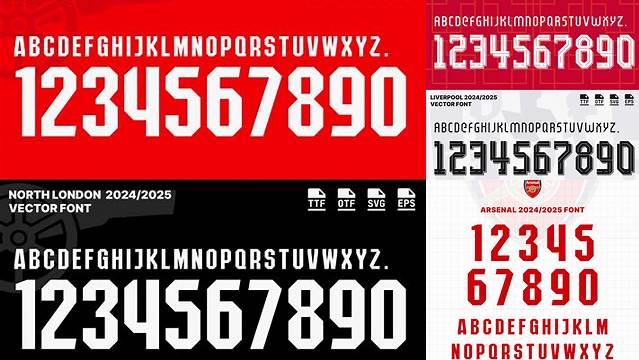
Football Fonts 2026: Designing For The Beautiful Game
Hey everyone! Let's dive into something super cool – the world of football fonts! Specifically, we're gonna explore what might be trending and awesome for the 2026 season. Choosing the right font isn't just about picking something pretty; it's about capturing the spirit of the game, reflecting a team's identity, and making sure your message is crystal clear to fans. Ready to get your design game on? Let's go!
Football Fonts: The Building Blocks of Team Identity
When we talk about football fonts, we're talking about more than just letters. They're a cornerstone of a team's brand. Think about it: every time you see a jersey, a stadium sign, or a social media post, the font plays a huge role in creating a visual identity. It’s like the team's voice in the visual world. For the 2026 season, we can expect to see continued innovation in this area. Teams will be looking for fonts that are both modern and timeless. They'll want something that resonates with their fans, conveys strength and unity, and looks great across all platforms, from the huge stadium screens to the tiny screens on smartphones. Gone are the days when any old font would do. Strong design choices can really help a team stand out and create a bond with its supporters. The right font can instantly communicate a team's values and what they stand for, like the fonts used by global giants like Manchester United and Barcelona. These teams don’t just pick any font, they pick a font that embodies their legacy and forward-thinking vision.
Football fonts have evolved significantly. Early fonts were often simple, and very basic, purely functional. Then, as the sport became more commercialized, teams started exploring bolder, more distinctive fonts. Today, we're seeing a mix of retro influences, futuristic styles, and custom-designed fonts tailored specifically to a team's needs. In 2026, expect to see even more creative and strategic font choices. Designers will be mindful of legibility, ensuring that the font is easy to read even from a distance or on a fast-moving screen. They will also be careful to reflect the latest trends in design, such as minimalism, geometric designs, and the use of variable fonts that can dynamically adjust to different screen sizes. It’s about more than just looking good; it's about crafting an experience that connects with fans and makes them feel part of the team. This also means font consistency is key, making sure the typeface is used on merchandise, websites, and other items. It builds brand recognition and reinforces team identity, as it plays a crucial role in fostering a sense of belonging and loyalty among fans.
The Psychology Behind Football Font Choices
Choosing a football font isn't just an aesthetic decision; it's also a psychological one. Different fonts evoke different emotions, so the font choice has to align with the team's personality. For example, a team that wants to project an image of strength and dominance might choose a bold, sans-serif font. If they're going for a more classic and traditional feel, they might opt for a serif font or a font that has a bit of a vintage vibe. In 2026, teams will need to be even more aware of this psychology. They'll need to understand their target audience and choose fonts that resonate with them. This means considering factors like age, cultural background, and even the team's location. A font that works well for a team in one country might not be appropriate for a team in another. It is about conveying messages that reinforce team values and aspirations. The psychology of font choice is also key when designing merchandise, as the font can be used to appeal to the emotional side of fans, making them want to buy items to support their favorite team. Therefore, teams need to conduct research and testing to make sure their fonts are conveying the message they want to send.
Font Trends for the 2026 Football Season
Alright, let's talk about what we might be seeing in terms of font trends for the 2026 football season. Designers will be looking for fonts that can make a statement, which is always a key goal in the world of sports branding. Here are some trends we can keep an eye on, but remember, things evolve fast!
The Rise of Variable Fonts
Variable fonts are the future, guys. They're super flexible, allowing designers to create dynamic typography that can adapt to any screen size. Think about it: a font that can change its weight, width, and slant, all within a single file. In 2026, we'll see more teams using variable fonts to create a more cohesive and responsive branding experience across all platforms. This can also have environmental benefits by reducing the number of font files needed. The variable font trend is driven by the need for flexibility, responsiveness, and overall visual impact. These fonts allow for a greater range of expression while still maintaining consistency. This adaptability is perfect for the dynamic world of sports branding, where teams need to ensure their message looks great, whether it's on a stadium banner or a mobile app. So, expect to see more variable fonts and greater sophistication.
Minimalist and Clean Fonts
Simplicity is still king. Clean, uncluttered fonts are perfect for conveying a sense of professionalism and modernity. In 2026, we can expect to see a lot of teams using sans-serif fonts with strong geometric shapes, like those used in some of the most popular sports brands. They are easy to read and work great on all platforms. This trend is all about stripping away the unnecessary and focusing on clarity and impact. It is essential for legibility and readability, especially on fast-moving screens. Minimalism is effective at conveying a sense of sophistication and modernity, which makes it perfect for teams aiming to project a professional image. These fonts are often used to communicate essential information to fans, such as match schedules and team news, ensuring that the information is easy to grasp.
Bold and Expressive Fonts
On the other end of the spectrum, some teams will go for fonts that are bold and expressive. These might have unique letterforms, strong outlines, or even some hand-drawn elements. They grab attention and reflect a team's unique personality. In 2026, these fonts will be seen more, especially by teams that want to create a strong brand identity. Bold fonts work best for creating attention, and they are ideal for creating a strong brand presence in the digital space. Such expressive fonts are often used to give a distinct visual voice for the team. They make the team stand out from their competition, communicating a message of boldness, innovation, and individuality. When using bold fonts, it is essential to ensure the font is legible. When used correctly, bold fonts can significantly improve a team's brand.
Retro and Vintage-Inspired Fonts
Nostalgia is always a strong player. Vintage fonts with a retro vibe, from the 70s or 80s, can add a sense of history and tradition to a team's branding. In 2026, we might see teams using these fonts to connect with their older fans or even appeal to a younger generation that loves retro styles. These fonts provide the ability to reach different audiences. They are also ideal for celebrating the team’s history. Vintage fonts are very effective at evoking a feeling of heritage and tradition, which creates an emotional connection with the team's fans. They work best for teams that have a rich history and a strong connection to their community, as they help reinforce the values and legacy of the team.
Creating a Winning Football Font Design
So, how do you go about creating a winning football font design? It's not just about choosing a font; it's about a thorough and thoughtful process. Here’s how you do it, step by step:
Understand the Team and Its Fans
Before you even think about fonts, you need to understand the team's personality, values, and target audience. What is the team known for? What kind of image do they want to project? What do their fans want? Do your homework, guys!
Research the Competition
See what other teams are doing. What fonts are they using? What works? What doesn't? You don't want to copy them, but you want to know the landscape. Always go for a unique approach to font selection.
Sketch and Experiment
Don't be afraid to experiment. Sketch out different font styles, weights, and variations. Test them out on different applications – jerseys, websites, social media, merchandise. The process of sketching allows you to explore different design options. This allows designers to visualize the font in different contexts, and also allows you to experiment with different variations and styles. This step is key to creating the perfect font design for a specific team. The result is often a customized and unique font for a team, providing an advantage in terms of branding.
Consider Legibility and Versatility
Make sure your font is easy to read from a distance and on all devices. It should also be versatile enough to use in a variety of applications. This step makes the font accessible. Therefore, the key to font selection is always to prioritize legibility and versatility. Legibility is of utmost importance. Ensure that the font is clear and easy to read in different formats and environments. Versatility is equally important, the font should be adaptable and work well in a variety of contexts.
Get Feedback and Iterate
Get feedback from the team, the fans, and other designers. Be willing to make changes and iterate until you have the perfect font. When it comes to fonts, iteration is essential. Always be open to feedback and refine your font to meet the evolving needs and preferences of the team and its fan base. Iterate through different versions and styles to find the perfect match. Getting feedback is an ongoing process that ensures a successful and effective font.
Custom Football Fonts vs. Using Existing Fonts
Should you create a custom football font or just use an existing one? Both have pros and cons.
Advantages of Custom Football Fonts
Custom fonts give you total control over the design. They're unique to your team, which helps create a strong brand identity. You can tailor the font to your specific needs. Creating a unique brand identity helps to differentiate the team from others. They are the ideal approach for teams looking to create a memorable identity and build brand recognition. A custom font, created by a team of designers, guarantees the team stands out and has a unique look that is not shared with other teams.
Advantages of Existing Fonts
Existing fonts are often more affordable and readily available. There's a huge variety to choose from. If you're on a budget or need something quickly, they can be a good option. They are also easy to implement on many different platforms. However, there is always the risk of using the same font as a competitor. But existing fonts are perfect for clubs that have limited time or budget constraints.
The Best of Both Worlds
Some teams might start with an existing font and then customize it. This can give you some of the benefits of both approaches. Customizing an existing font allows you to retain some of the font's original characteristics while making it unique to your team.
The Role of Fonts in Football Merchandise and Branding
Fonts play a vital role in football merchandise and branding. They are not only important for logos and team names but also for jerseys, signage, and any promotional material the team releases. The goal is always to create a consistent, strong visual identity.
Designing Effective Football Jerseys
On jerseys, the font needs to be legible and match the overall design of the jersey. This is crucial for fans who want to easily see the player names and numbers. The font should also be durable, able to withstand wear and tear and washing. The font should be able to provide a cohesive design that appeals to the fans.
Signage and Stadium Branding
In stadiums, fonts must be large, bold, and easily readable from a distance. It is important for directional signs, information boards, and other elements of branding. The goal is to create a welcoming atmosphere and make it easy for fans to navigate the stadium.
Digital Branding and Social Media
Online, fonts need to be responsive and look good on all devices. This includes websites, social media, and other digital platforms. The font should also match the team's brand identity. It should be consistent across all platforms. This helps to build brand recognition and loyalty.
Legal Considerations in Football Font Design
There are also some legal considerations when designing fonts for football. Be careful of copyright issues, licensing agreements, and trademark registrations.
Avoiding Copyright Infringement
Don't use a font that is already copyrighted or trademarked by another brand. It is very easy to get into trouble if you use fonts that are protected. If you're unsure, always seek legal advice. By doing this, you are protecting your team from any legal issues.
Font Licensing and Usage Rights
Make sure you have the proper license to use the font. Some fonts are free, while others require a license. Understand the terms of the license and make sure you're using the font correctly. There are different licensing structures available. Always check the terms to make sure you're using the font appropriately.
Trademark and Brand Protection
Consider trademarking your custom font to protect it from being used by other teams or brands. This helps protect your team's identity and brand. This helps to protect your brand by ensuring it is unique and recognizable.
The Future of Football Fonts: Predictions for 2026 and Beyond
Looking ahead to 2026 and beyond, what can we expect for football fonts? Here are some predictions:
Personalization and Customization
We'll see even more teams going for custom fonts that are tailored to their specific needs and brand. Personalized fonts are becoming more common. Teams will be more creative in their design of team-specific fonts. These fonts will contribute to creating a unique identity for the team, making them stand out from other clubs.
Integration of Technology
Expect to see the integration of more advanced technologies, such as variable fonts, dynamic typography, and even AI-assisted font design. It will result in more creative and dynamic branding experiences. They will also improve the overall design, creating more visual impact.
Sustainability in Font Design
With the growing focus on sustainability, we may see fonts that are designed to be more eco-friendly. This includes fonts that use less ink and reduce environmental impacts. Teams will likely be more conscious of making decisions with their carbon footprint in mind.
Global Influence and Diversity
We will see a more diverse and global influence on font design. Teams are increasingly looking for fonts that reflect their multicultural fan base. The use of fonts will make teams more attractive to a wide range of fans. This will create a visual representation of inclusivity.
Where to Find Inspiration for Football Fonts
Need some inspiration? Here are some resources for finding awesome football fonts and design ideas:
Behance and Dribbble
These platforms are great for seeing the latest trends in design. It is a good place to start, and to find new ideas and inspiration. You can find a lot of amazing font designs. Always look at what other designers are doing.
Font Libraries and Websites
Websites like Google Fonts, Adobe Fonts, and MyFonts offer a vast library of fonts to choose from. These are great resources for finding fonts, and also the latest trends. The selection is almost limitless. This allows you to research and also experiment.
Football Club Websites and Social Media
Check out the websites and social media pages of your favorite football clubs. Observe how they use fonts. It can give you a lot of ideas. See how the team uses its font in different ways. Take note of the styles, weights, and font styles.
Design Blogs and Magazines
Read design blogs and magazines to stay up-to-date on the latest trends and techniques. Always check out the design blogs. Check the latest design news and techniques. Be sure to stay informed about design trends. By doing this, you can improve your design skills.
The Impact of Football Fonts on Fan Engagement
Football fonts aren't just about looking good. They can make a real impact on fan engagement. Here’s how:
Building Brand Recognition
A consistent font across all platforms helps build brand recognition. It makes it easier for fans to recognize your team. Always make your font a recognizable element. A strong identity will help establish a memorable and consistent visual presence for your club, increasing brand recognition among fans.
Enhancing the Fan Experience
Choosing the right font can enhance the overall fan experience. It creates a positive association with the team. A well-designed font makes it easy to read information, communicate effectively, and convey the team's values. The right fonts can also create an emotional connection with fans.
Fostering Community and Loyalty
A font that resonates with fans helps foster a sense of community and loyalty. It creates a feeling of belonging. It also strengthens the connection between the fans and the team. This allows fans to feel like they are part of something bigger. This will enhance the overall fan experience.
Tips for Choosing the Right Football Font
Ready to choose a font? Here are some tips to guide you:
Consider Your Team's Personality
Does your team have a bold, aggressive style, or a more classic, traditional one? Choose a font that reflects your team's personality. Always pick a font that matches the character of your team. Align the font with your team's unique identity.
Prioritize Legibility
Make sure your font is easy to read from a distance and on all devices. Legibility is crucial. It's always more important than the aesthetic qualities of a font. Always make sure your font is readable. Poorly legible fonts will frustrate the fans.
Ensure Versatility
Choose a font that works well in a variety of applications. Make sure it's versatile. Always make sure it can be used across all channels. A versatile font will ensure a consistent look across all of the platforms.
Get Feedback from Others
Ask for feedback from your team, your fans, and other designers. Getting feedback is crucial. Seek feedback early in the design process to get a clear view. Consider their ideas and preferences.
Test and Refine
Test your font on different applications and refine it based on feedback. Be sure to refine. Never stop refining. This ensures your font meets the team's needs and the fans' preferences.
Football Font Design for Different Platforms
Football fonts need to be adapted to different platforms, including digital platforms, print, and merchandise.
Font Design for Digital Platforms
On digital platforms, like websites and apps, the font needs to be responsive and look good on all devices. Digital platforms require fonts that are adaptable. The font must work well in various digital formats. The font must also be compatible with the latest software. The font needs to be able to scale and display correctly on all devices.
Font Design for Print Materials
For print materials, such as brochures, posters, and magazines, the font needs to be clear and easy to read. The font should be appropriate for the layout. The font should also be chosen for legibility. Always choose fonts for the print materials. Make sure the font is easy to read and is appropriate for the layout.
Font Design for Merchandise
For merchandise, the font needs to be durable and match the overall design of the product. The font should be suitable for various products. Be sure to choose fonts appropriate for the products. This will help promote the brand, and will allow you to have a range of products.
Famous Football Clubs and Their Fonts: Case Studies
Let’s look at some famous football clubs and their font choices. Here are some case studies:
Manchester United: The Iconic Serif
Manchester United is known for its iconic serif font, which conveys a sense of history and tradition. The font is timeless. It is used on the jerseys, on the website, and other merchandise. It represents a brand legacy and identity. The font reinforces its status as one of the world's top clubs.
Real Madrid: Bold and Modern
Real Madrid uses a bold, modern sans-serif font that reflects the club's global reach and ambitious nature. The font is used on the jerseys, the website, and other merchandise. It projects strength and a forward-thinking vision. This represents a brand that is dynamic and modern.
FC Barcelona: A Blend of Tradition and Innovation
FC Barcelona uses a font that is a blend of tradition and innovation. The font is designed for versatility and modern appeal. The font creates a harmonious balance. It is used across all platforms. The versatility of the font is very effective in the brand identity of the club.
Juventus: A Consistent Brand Identity
Juventus uses a consistent font across all platforms, which helps build brand recognition. The font is recognizable. The font is used in the club's logo. This brand helps establish a consistent visual presence for the club. The result is an instantly recognizable brand.
The Emotional Connection: How Fonts Influence Fan Loyalty
Fonts can play a powerful role in influencing fan loyalty. They can create an emotional connection between the team and the fans.
Creating a Sense of Identity
A unique font helps create a sense of identity. This helps fans feel like they are part of a community. The font gives a distinctive personality to the team. It is the key to building a community.
Evoking Nostalgia and Tradition
Some fonts can evoke nostalgia and tradition. This can resonate with older fans, creating an emotional link. A familiar font has a powerful effect. A well-chosen font makes fans feel part of the history of the team.
Fostering Pride and Passion
When fans are proud of their team, they are passionate. The font can help foster pride and passion. The font is part of the experience. The design and presentation of the font adds to the experience. A great font is memorable and has emotional impact.
Strengthening the Fan-Team Relationship
The font, when chosen correctly, can strengthen the fan-team relationship. This results in a more engaged fanbase. The result is a deeper bond and a more committed fanbase. The font becomes a symbol, and the fans see the font as part of the team.
Accessibility and Football Fonts
When designing football fonts, you need to consider accessibility. Always ensure that your font is accessible to everyone. This includes people with visual impairments.
Ensuring Legibility for All
Legibility is key for all. Always make sure your font is easy to read for everyone. The design and clarity of the font should not exclude anyone. Choose fonts that are easy to see at a distance. Always test your fonts and make sure they are easy to read, even on a fast-moving screen.
Using Color and Contrast Effectively
Use colors and contrast effectively. High contrast helps with legibility. Choose colors that provide sufficient contrast. Always make sure the text is visible against the background. Avoid using colors that make the text hard to read. Prioritize the ease with which text can be read by everyone.
Designing for Different Screen Sizes and Devices
Design for different screen sizes and devices. Make sure your font is adaptable. Test it on different screens. Make sure your font looks good on a variety of devices. Always make your font accessible and user-friendly. By keeping these factors in mind, you can ensure that your font is inclusive.
The Impact of Fonts on Player Branding and Recognition
Fonts also play a critical role in player branding and recognition. When you see a player on the field, the font on their jersey is an important part of their brand.
Enhancing Player Visibility
The font on a jersey can enhance player visibility. Make sure the font is easy to read. Fans need to be able to recognize their favorite players. The best font will help people easily see the players' names. When players' names are legible, it's easier to connect with them.
Creating a Player's Visual Identity
Fonts help create a player's visual identity. The font choice helps define the player's brand. This makes the player recognizable. The font creates an identity. This helps the players to establish their personal brands.
Supporting Sponsorship and Endorsements
Fonts are important for sponsorships and endorsements. When fonts are consistent, it enhances the brand's appeal. A well-designed font and a solid brand can generate more revenue. Strong fonts are important in the world of sports.
The Future of Football Fonts: Technology and Innovation
Technology and innovation will continue to influence football fonts. Here’s what we can expect:
AI and Font Design
AI will begin to play a larger role in font design. AI can create new and unique fonts. AI can analyze existing fonts. The use of AI will increase. AI will become a common tool in font design.
Dynamic and Interactive Fonts
Dynamic and interactive fonts will become more common. These fonts will adapt to different applications. This will create a more engaging user experience. Expect more advanced features. The design and innovation of fonts will change the industry.
3D Fonts and Augmented Reality
3D fonts and augmented reality will transform branding. Brands will become more immersive. The use of 3D fonts will become more common. This can lead to innovative new designs.
Conclusion: The Enduring Power of Football Fonts
Alright guys, there you have it! We've gone on a wild ride through the world of football fonts and explored the amazing impact they have on the beautiful game. From the simple beginnings to the cutting-edge designs of the future, fonts are a crucial element of football. As we look ahead to 2026 and beyond, we can expect to see even more creativity, innovation, and strategic thinking in the world of football font design. So, keep your eyes peeled for what's next, and remember, it's all about creating a visual identity that captures the spirit of the game and connects with the fans. Cheers to the power of fonts!